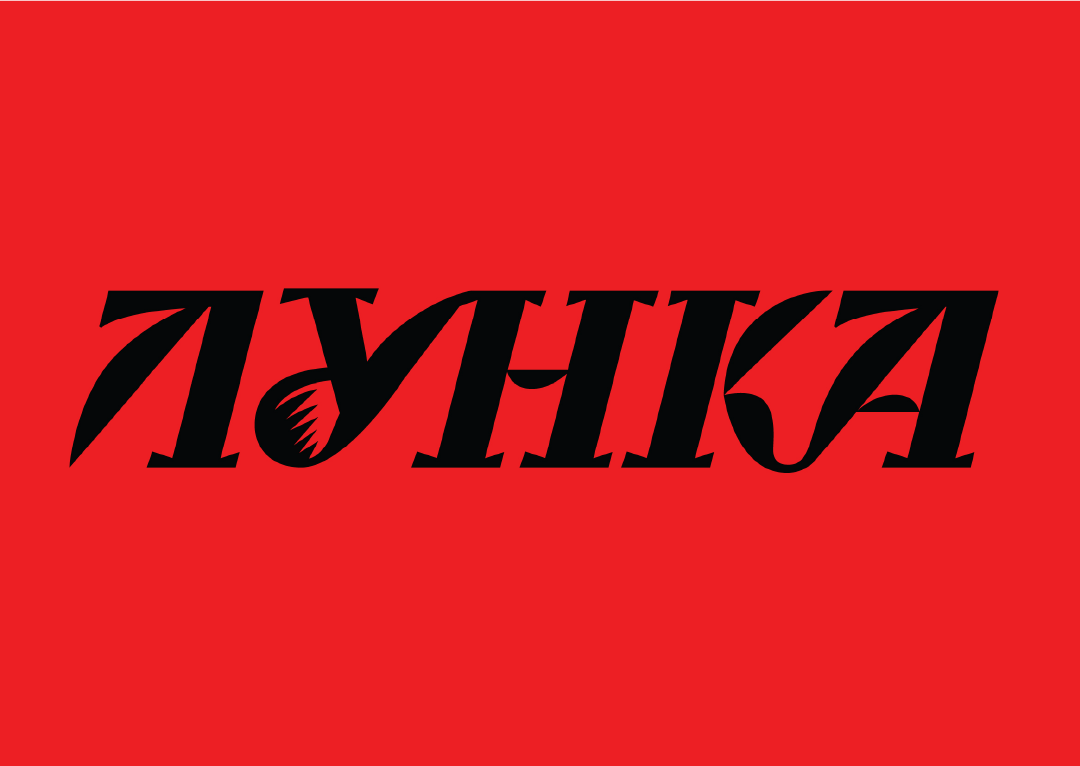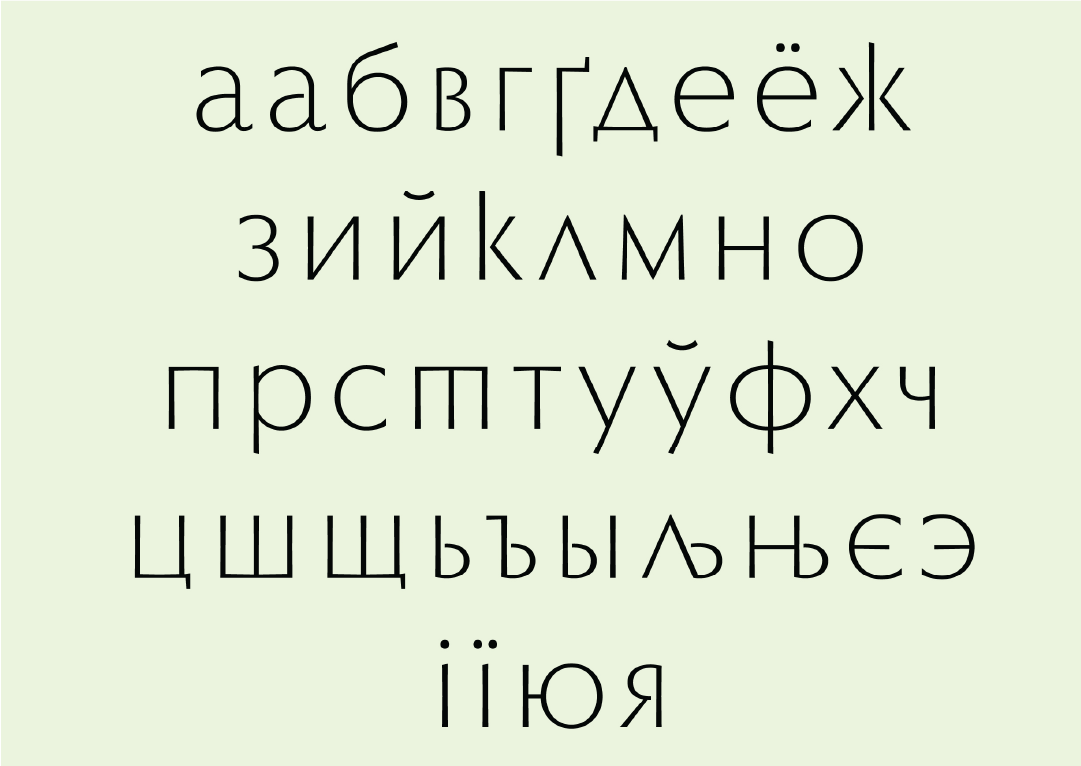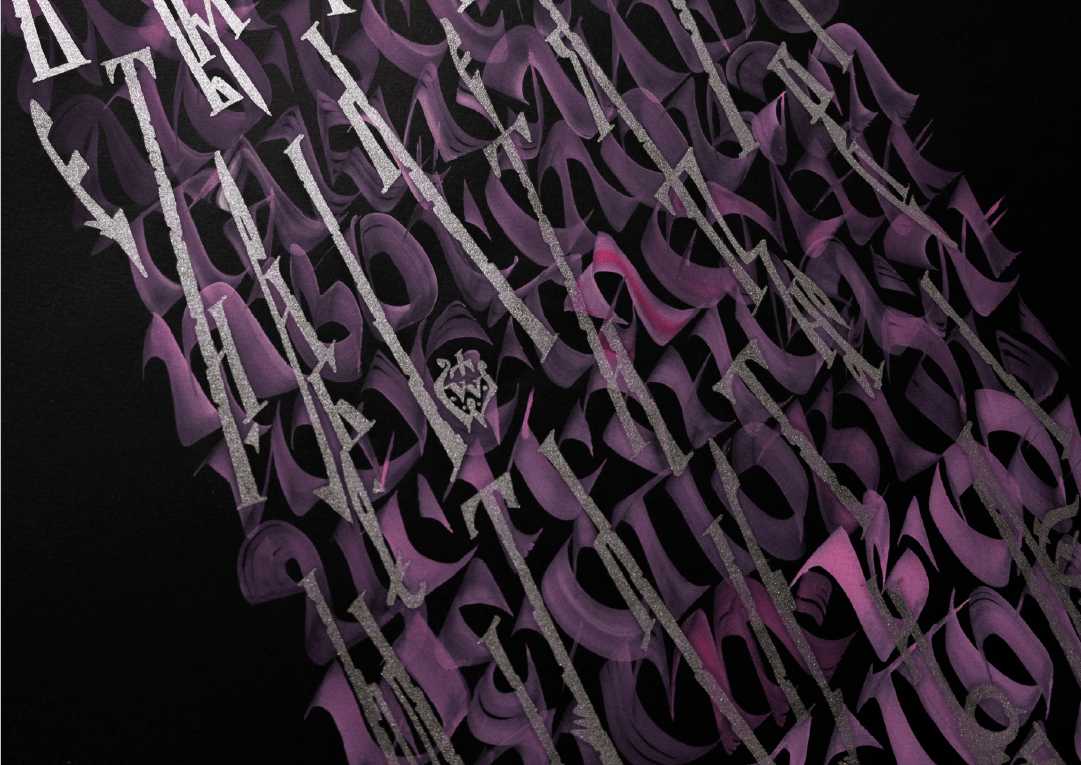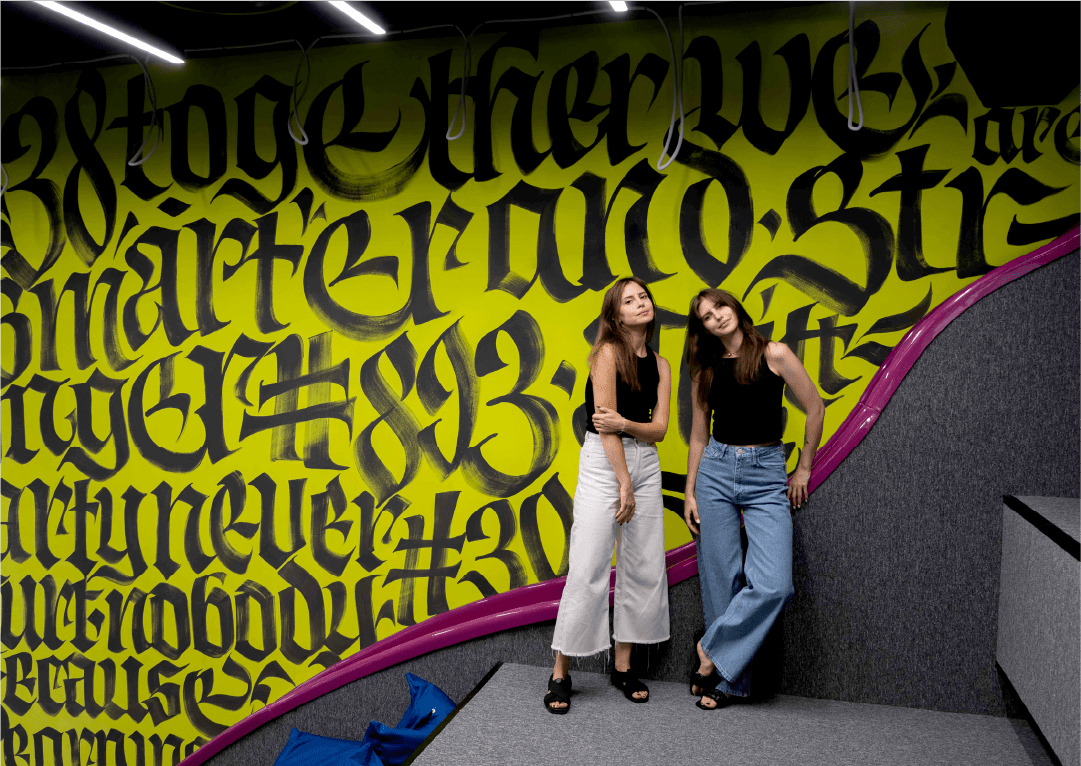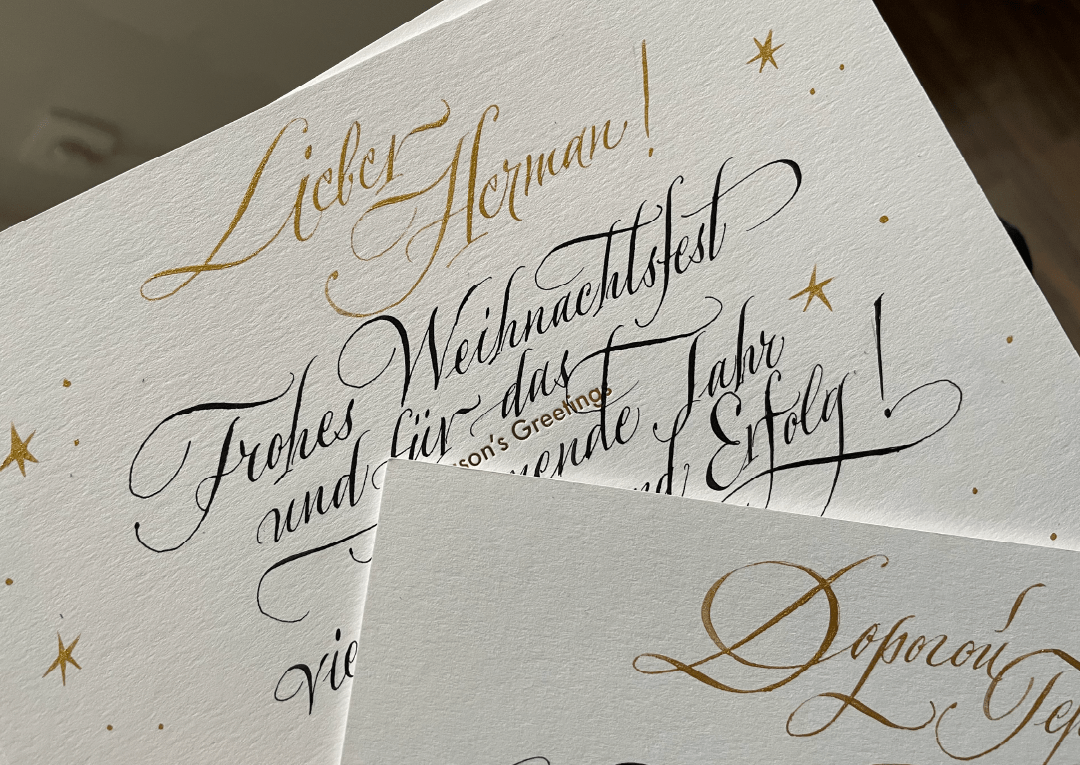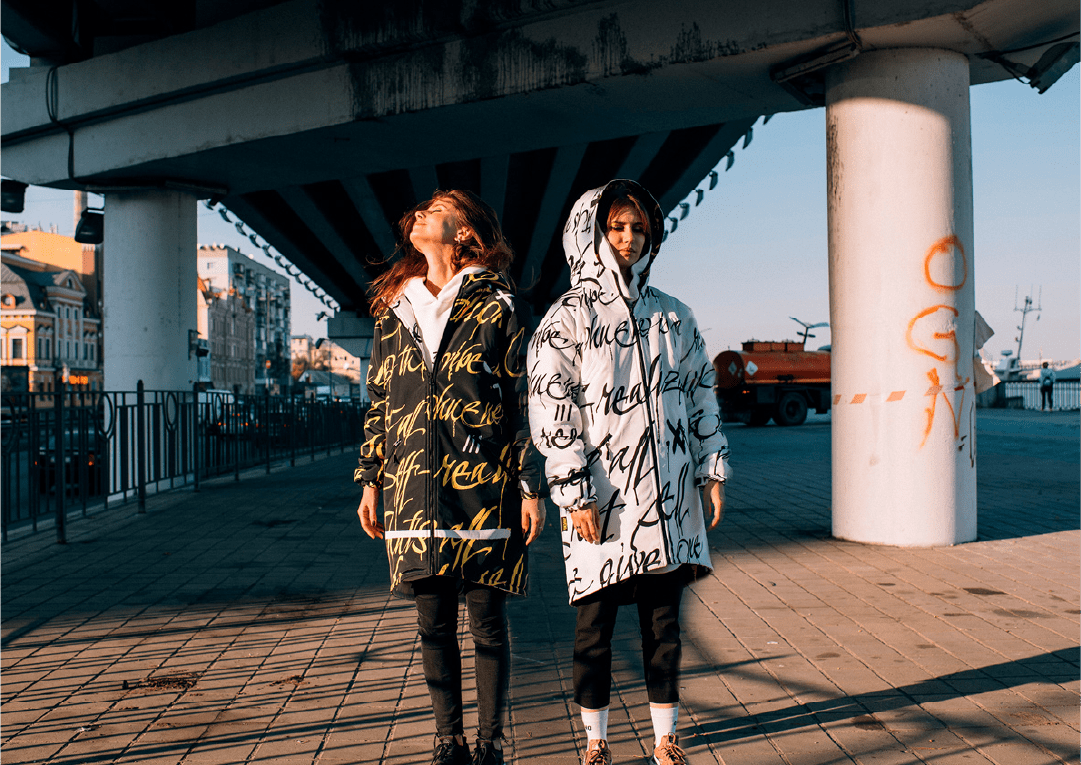
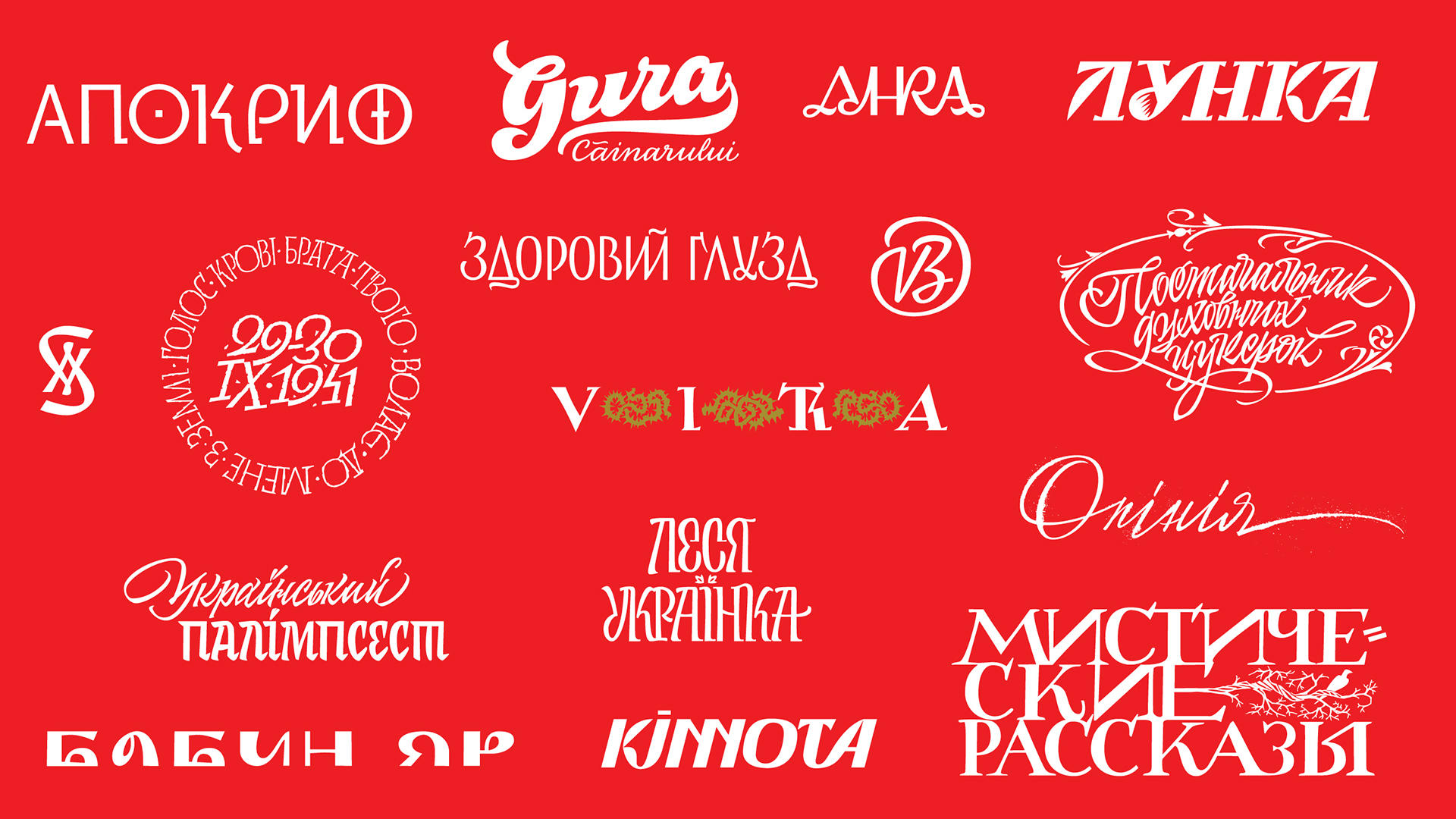
In this lecture, we will talk about Ukrainian Cyrillic through the lens of historical analysis and personal stories, using examples from our own works, projects, and personalities, both historical and among our colleagues.
Victoria and Vitalina Lopukhina work as a duo as calligraphers, illustrators, graphic designers, type designers and teachers. Very quickly on their career, they enjoyed working with typography —especially with artistic calligraphy and lettering. Cyrillic script as rooted in the Ukrainian tradition is something for which they dedicate their time. It is in these ancient roots that they found an inspiration for a path forward for Cyrillic letterforms. As “amateur” Cyrillic paleographers, they have spent countless hours examining examples of historic handwriting in the dusty library archives, working with historical documents — in addition to various digital archives.